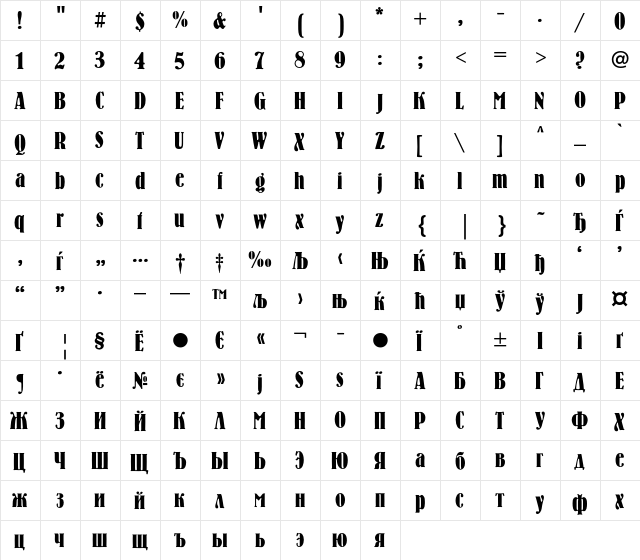
BernhardC Regular
Design Context for BernhardC Typeface
BernhardC is a composed and adaptable typeface that performs quietly and consistently across a wide range of design contexts.